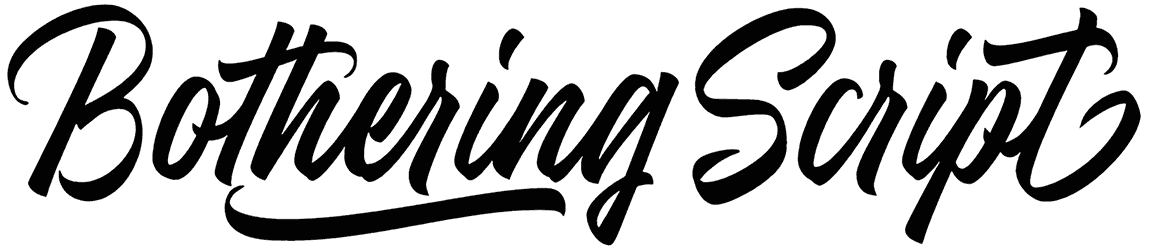
Bothering Script Font
Bothering Script is an elegant and sophisticated calligraphy font with a formal, feminine vibe. Despite its lack of numeric value, it may be used to create a wide range of eye-catching ads and other artwork. For its charming melody, this font is perfect for use in wedding invitations, greeting cards, tattoos, and love letters. To find items like these, just use our search bar.
http://mn.sg/bothering-scriptUse underscore _ to make a swash.
Example: Wonder_woman
Use multiple underscores for different swashes.
Example: Cool___ness